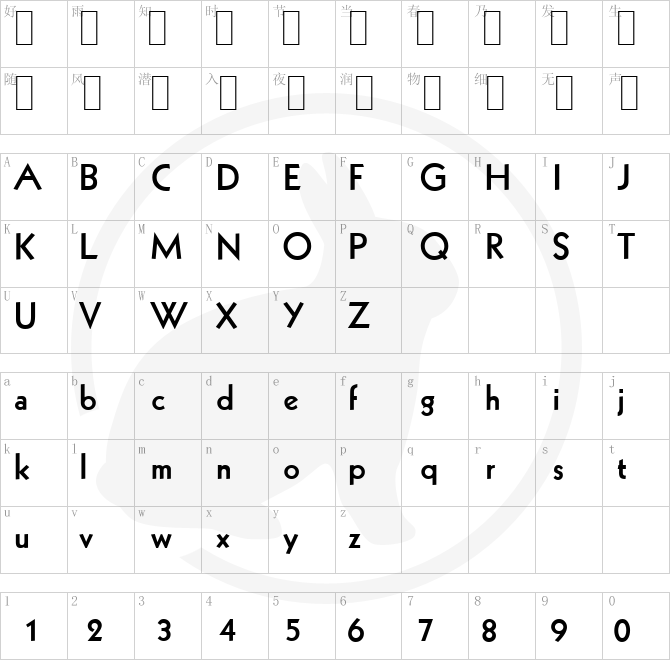
- Font Name:K791-Geometrical
K791-Geometrical-Bold.ttf is a very beautiful artistic font, K791-Geometrical-Bold.ttf is widely used in the design and printing of various books and pictures,K791-Geometrical-Bold.ttf has a strong visual impact,K791-Geometrical-Bold.ttf is a commonly used font in newspapers, magazines and books, and is used in posters, e-commerce Poster design, store design, logo design, font design and other fields.K791-Geometrical-Bold.